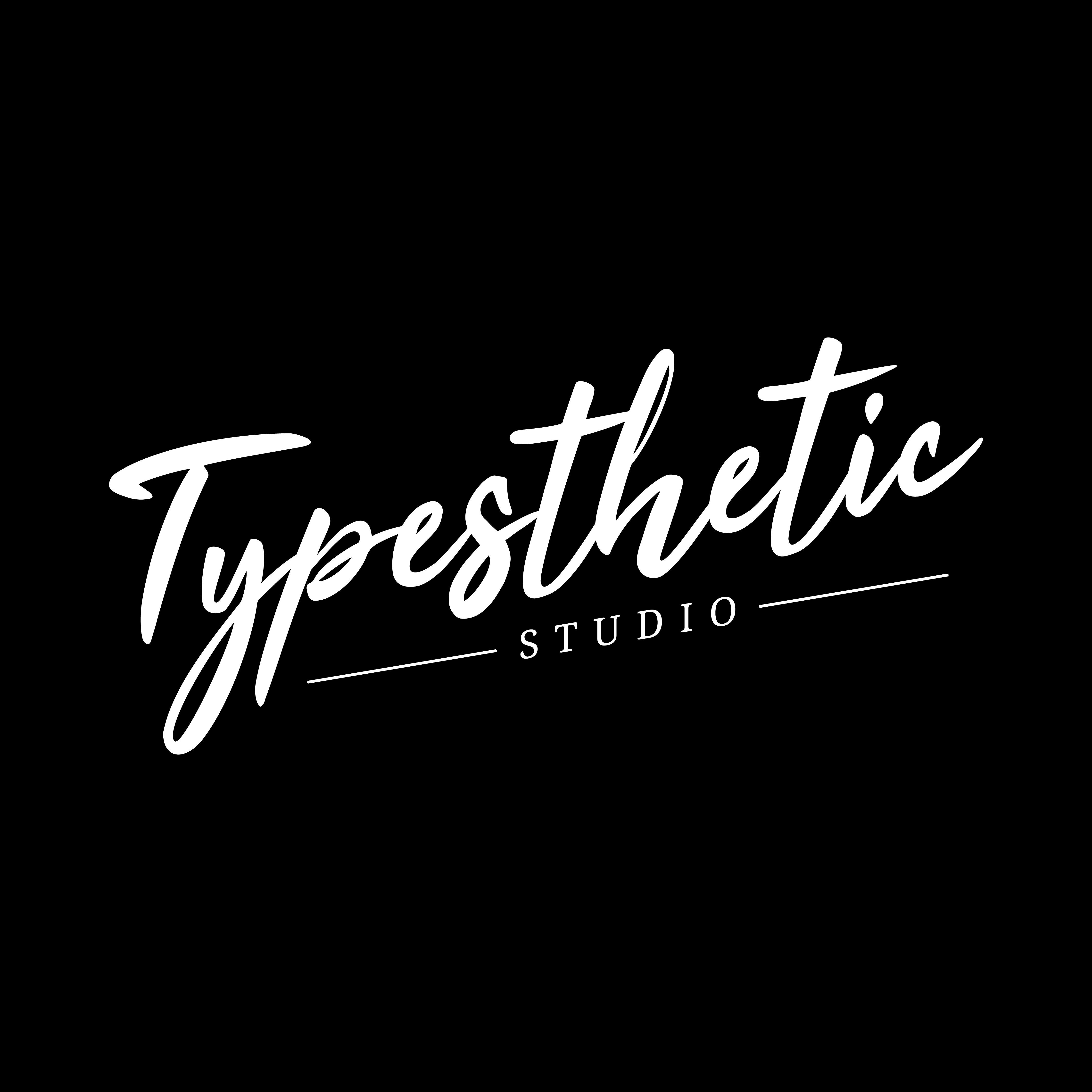
Arabela Script Font Description
Arabela Script is a stylish and incredibly elegant script font. It will add a luxury spark to any design project that you wish to create! This font is PUA encoded which means you can access all of the amazing glyphs and ligatures with ease!